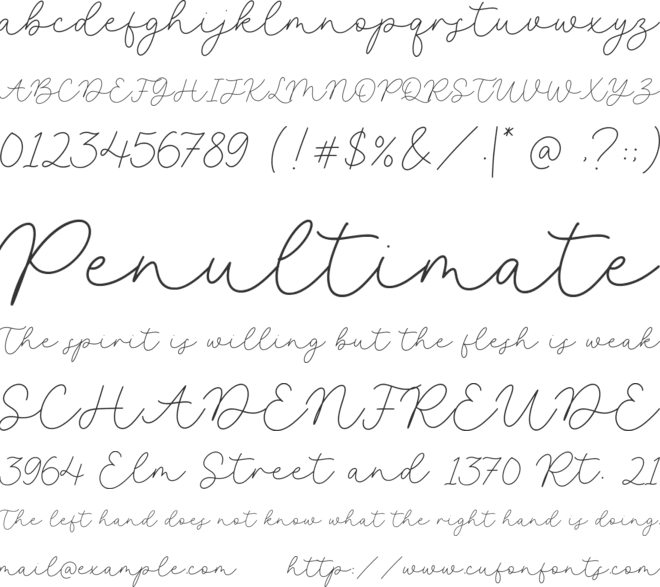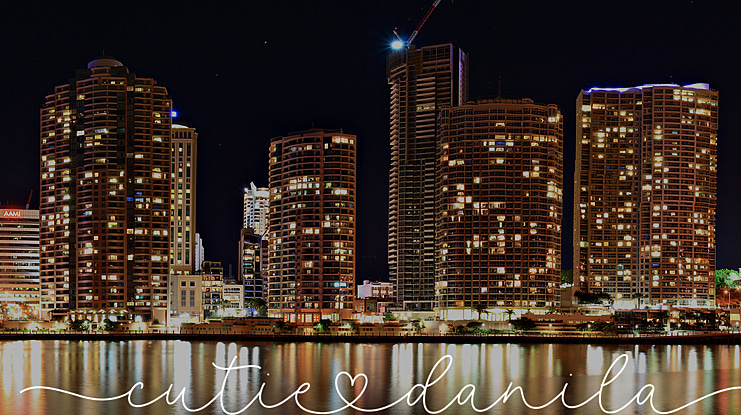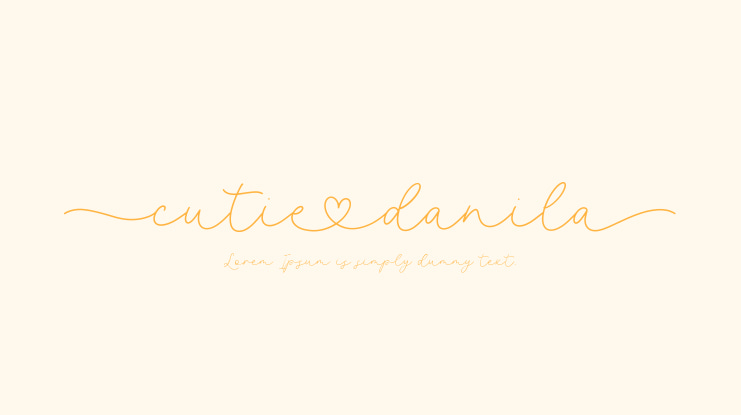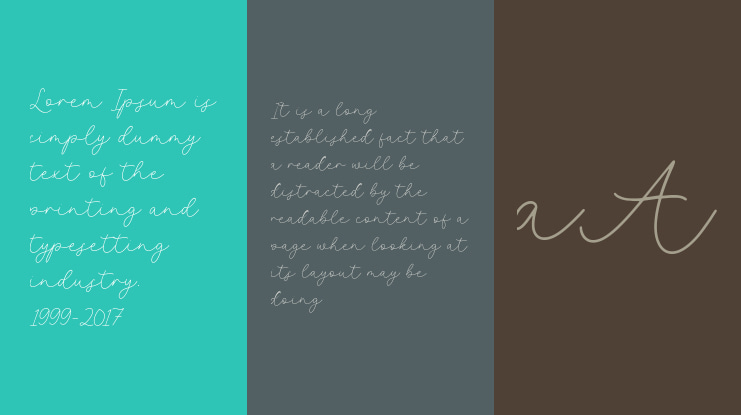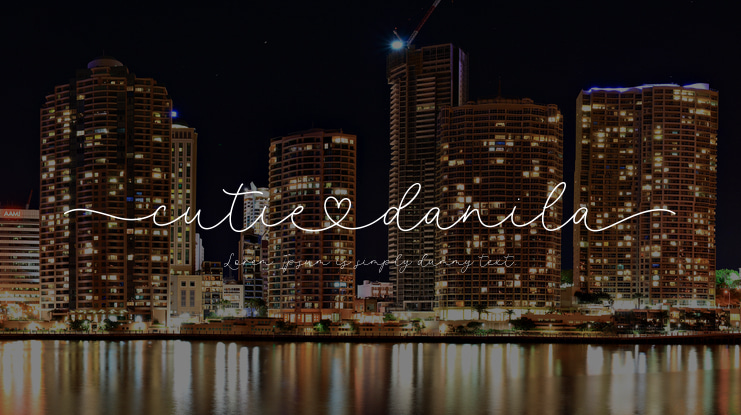
Timur Type Studio
Introduced by Timur type
Proudly Present Cutie danila
Cutie danila is a Handwritten script font that is modern and fresh, and will bring a warm and inviting feel to your business. Take advantage of the fonts and experience the magic for yourself.
Cutie danila is perfect for product packaging, branding project, megeenazine, social media, wedding, or just used to express words above the background.
Cutie danila Font Features premium :
-Full Set of standard alphabet and punctuation
-Extra set Begenning & Alternate lowercase
– extra 26 lowercase ending swash
– Balqueen also multilingual support.